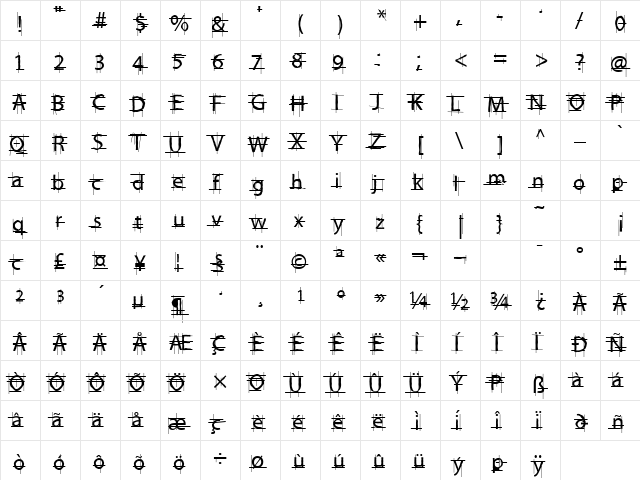
Delineator Regular
Design Context for Delineator Typeface
Delineator is a composed and adaptable typeface that performs quietly and consistently across a wide range of design contexts.